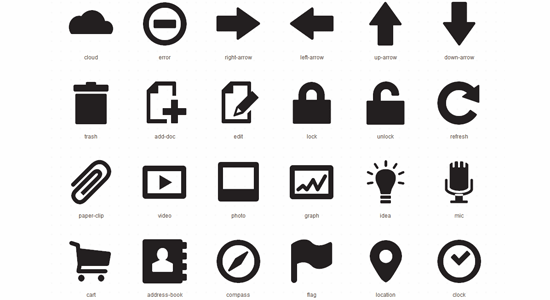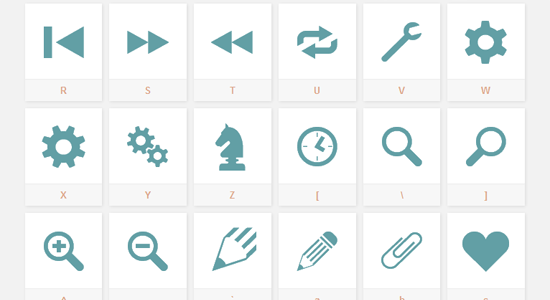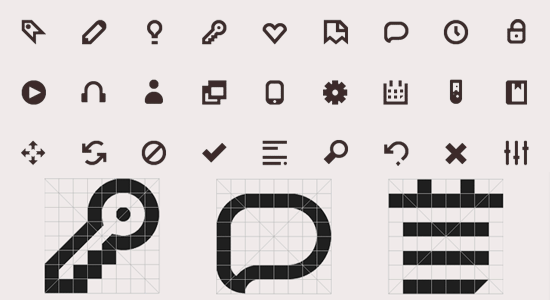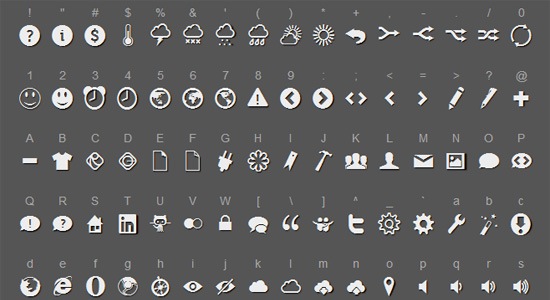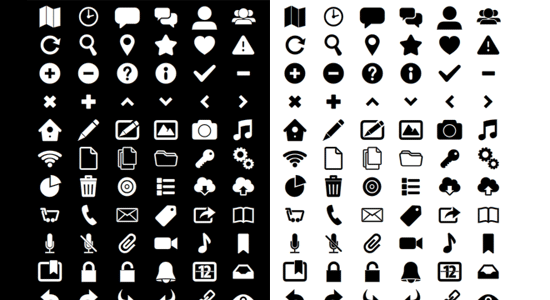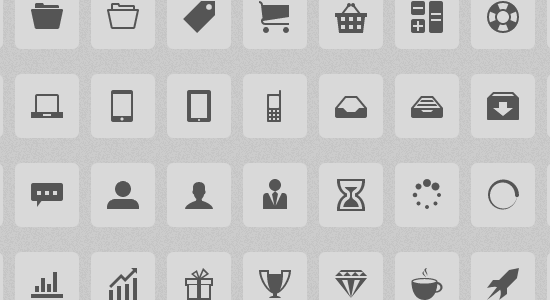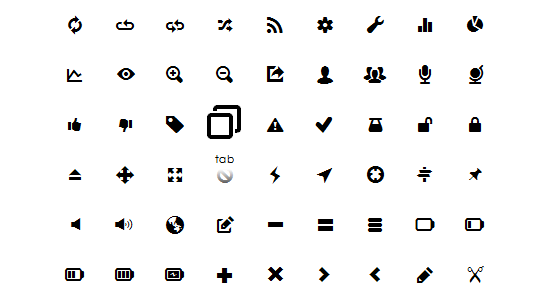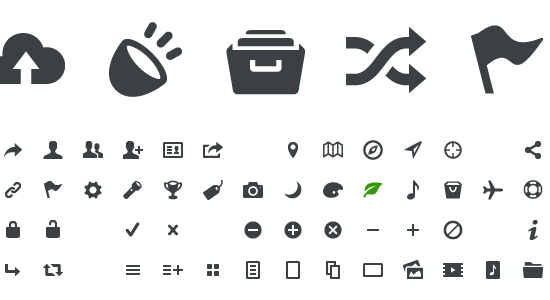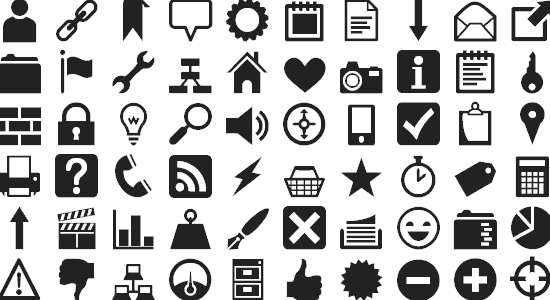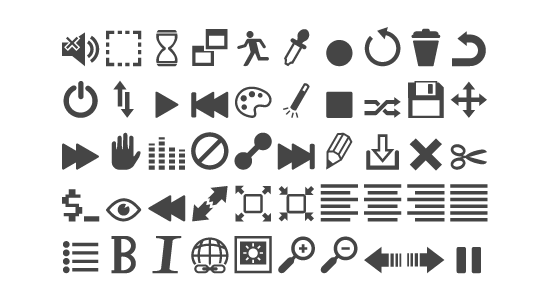
This roundup features 18 free icon fonts that can be used in your commercial projects. The icon fonts in this post are perfect for your app user interfaces (UIs).
What are Icon Fonts?
Icon fonts are font files that have symbols and glyphs (e.g. arrows, folders, magnifying glasses) instead of standard alphanumeric characters.
Icon fonts are like dingbat fonts, but are designed specifically for UIs. Icon fonts, just like other web fonts, use the CSS @font-face rule to display icons in web browsers. And because they’re treated like web fonts, icon fonts:
- Have great cross-browser support (even IE6, for example, can render web fonts using the
@font-face
rule) - Can be scaled on-the-fly if the user adjusts their web browser settings
- Can be rendered with different colors
- Can embody font- and text-related CSS properties (like
text-shadow
andgradient
)
Free Icon Fonts
1. Foundation Icons Fonts
2. Sosa icon font
3. Font Awesome
4. Iconic Icon Set
5. Raphaël Icon-Set
6. PulsarJS @FontFace
7. IcoMoon
8. Typicons
9. Entypo
10. Heydings Icons
11. Heydings Controls (App Icon Font)
12. JustVector Social Icons Font
13. Modern Pictograms
14. Brandico
15. Signify Lite
16. Web Symbols typeface
17. Social Media Icons
18. ikoo